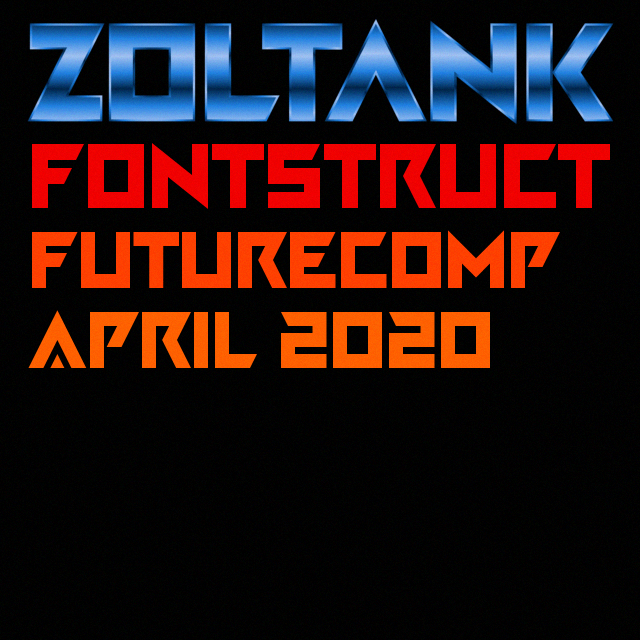
Very stylish entry. Good luck!
very decent
I love the fact that: “B”, “K”, “P”, and “R” are so consistent.
Did you ever think about using the same diagonal lower stroke on: “E” as on: “L”?
@TH3_C0N-MAN: Yes, but the diagonal strokes are only supposed to be at the top, J and L are an exception.
I like this font, you familiar with constructivism, but I think, you need to add kerning.
@Sychoff: Kerning doesn't work currently.
Edit: Kerning added (except for accented letters)
Wow, I'm intrigued! 11/10
damn that look good